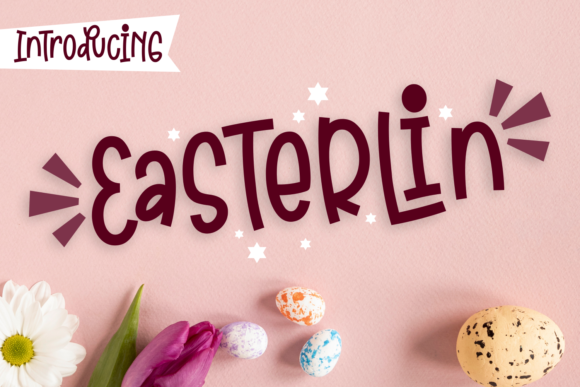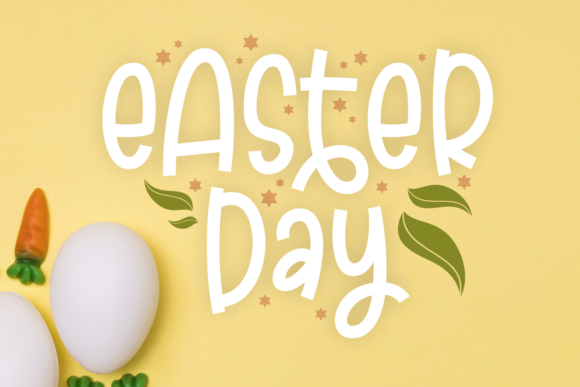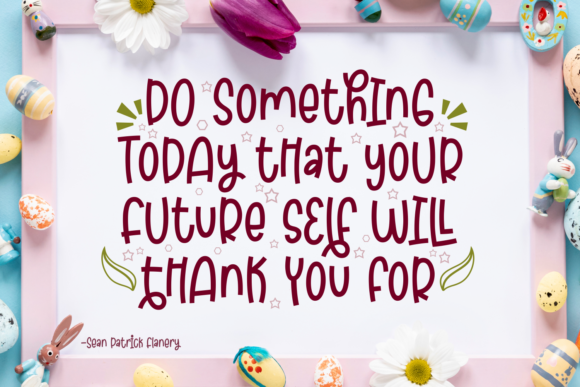
Easterlin Font
About Easterlin Font
Easterlin feels equally charming and elegant. This amazing handwritten font is a stylish homage to classic calligraphy. Easterlin is the perfect font for making original and outstanding designs.